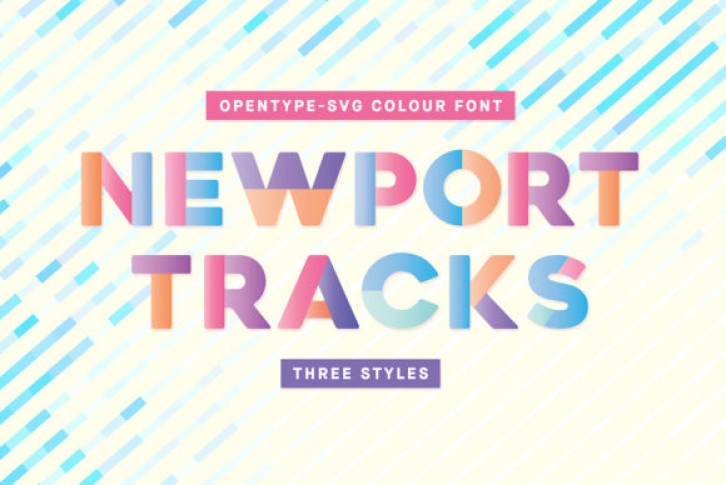
Newport Tracks is a unique and fantastic display font. It comes in three different color palette that will take your crafting projects to the next level! Fall in love with its authentic feel and use it to create gorgeous wedding invitations, beautiful stationary art, eye-catching social media posts, and cute greeting cards.